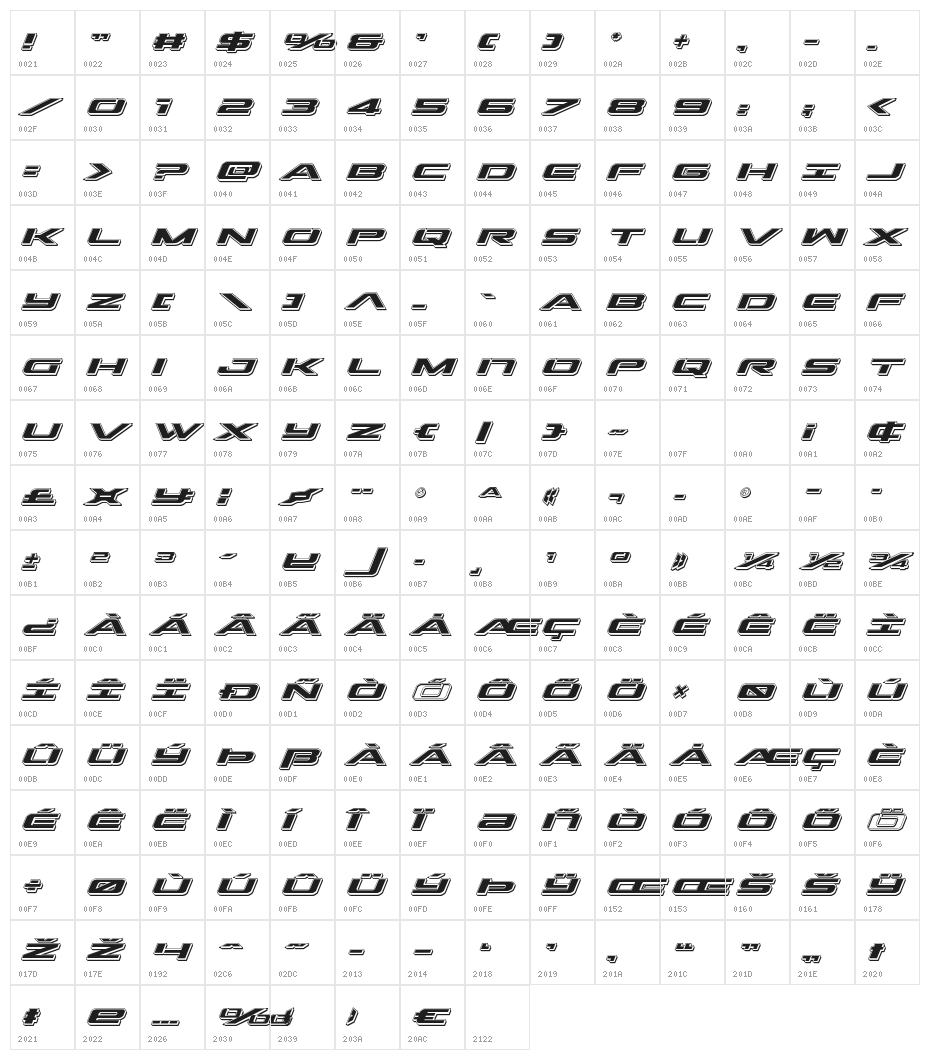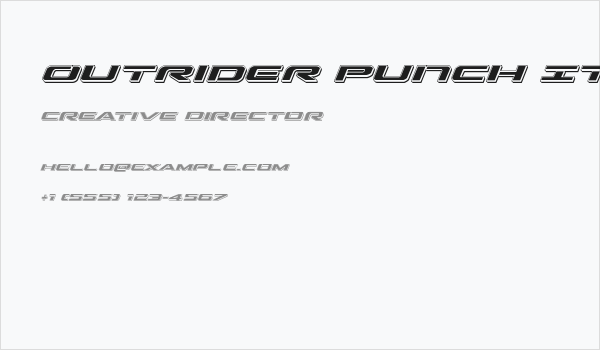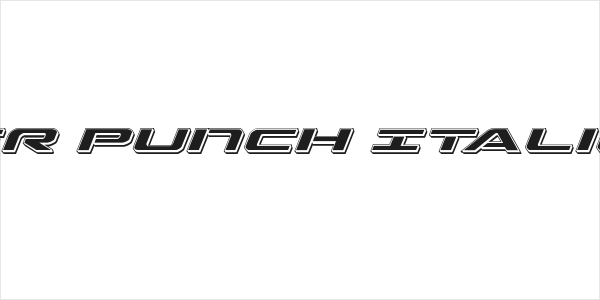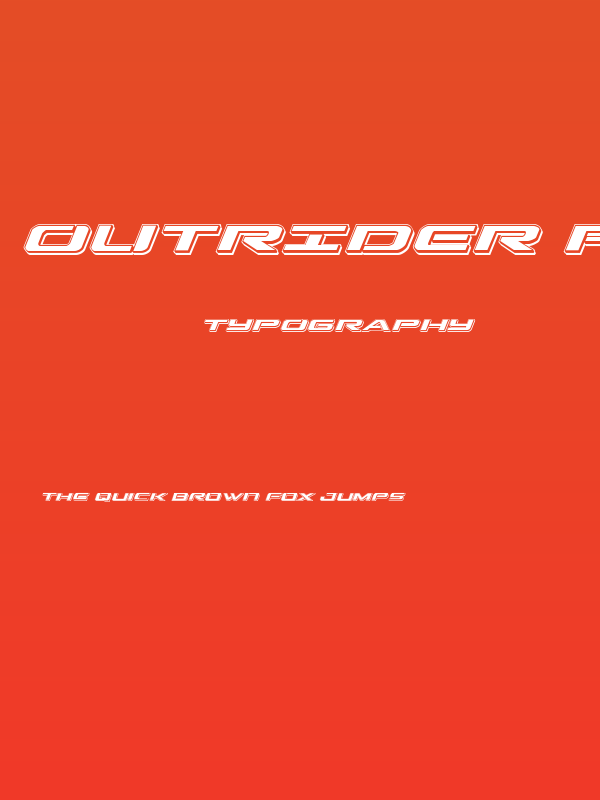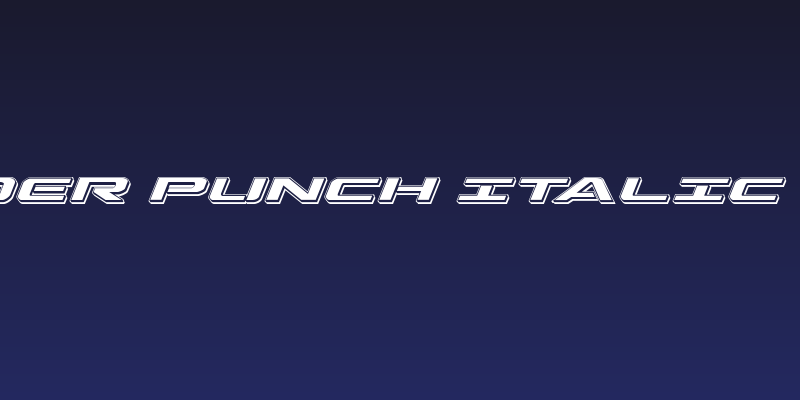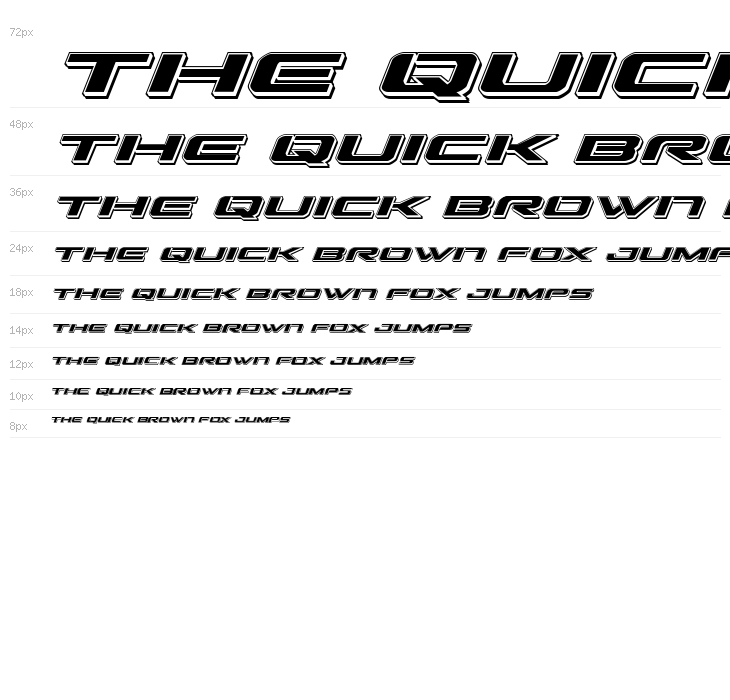
Outrider Punch Italic Italic Font
Outrider Punch Italic Italic Description
This font features a dynamic and futuristic style with a distinct italic slant, giving it a sense of motion and speed. The characters are bold and outlined, creating a strong visual impact. The design incorporates sharp angles and geometric shapes, adding to its modern and edgy appearance. The uppercase and lowercase letters maintain a consistent style, while the numerals and special characters complement the overall aesthetic. This font is ideal for projects that require a bold and energetic look.
| Proposed Projects | Perfect for sports branding, video game titles, automotive designs, and tech-related projects. |